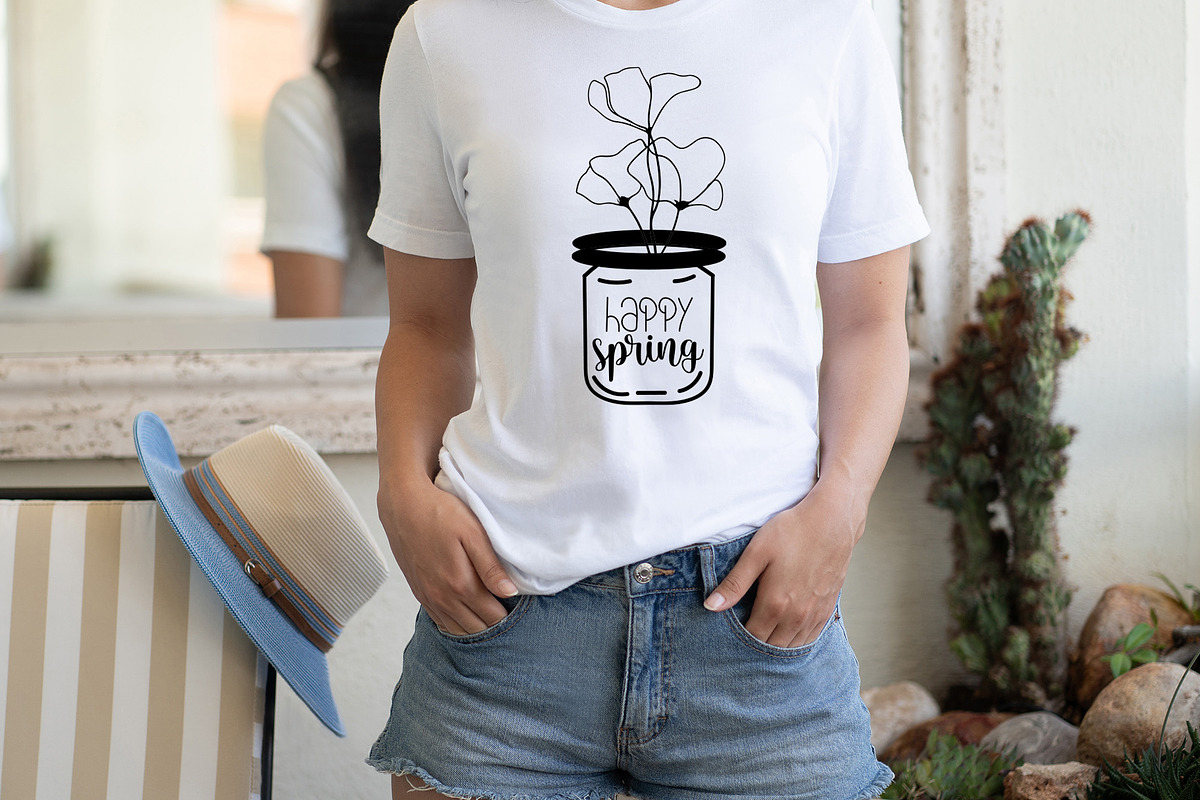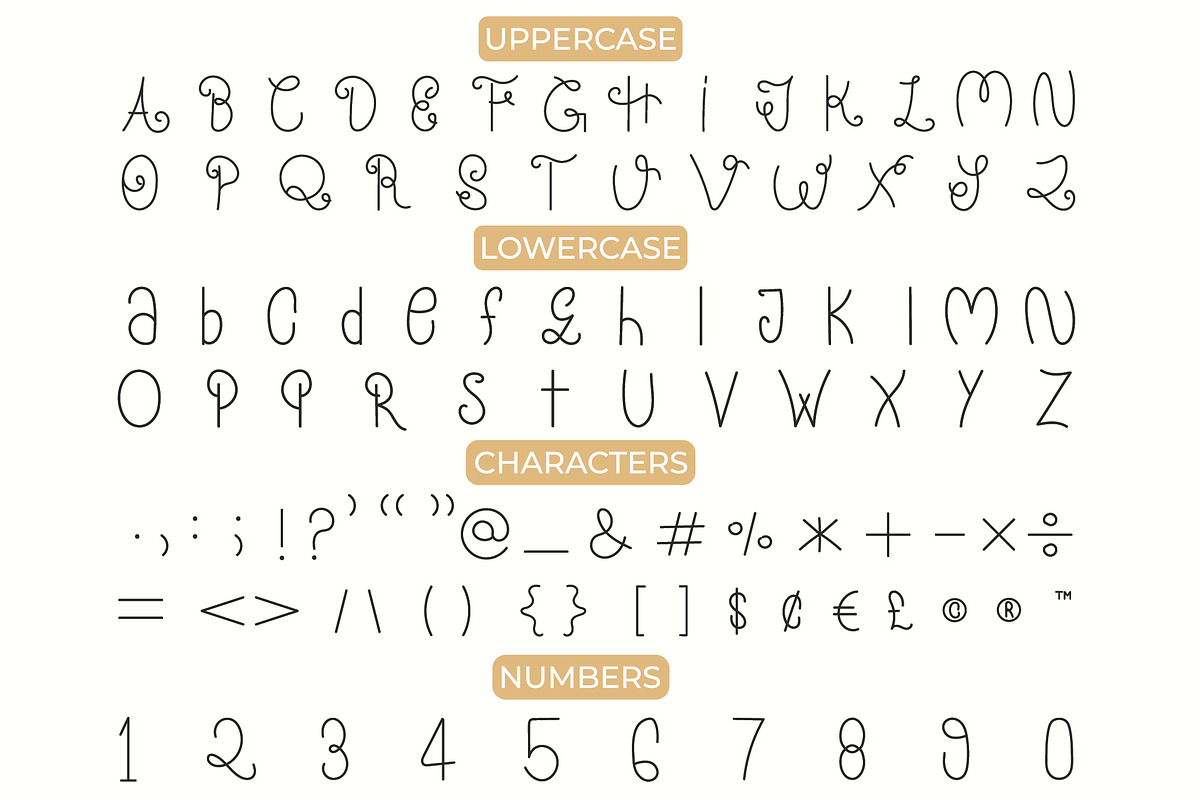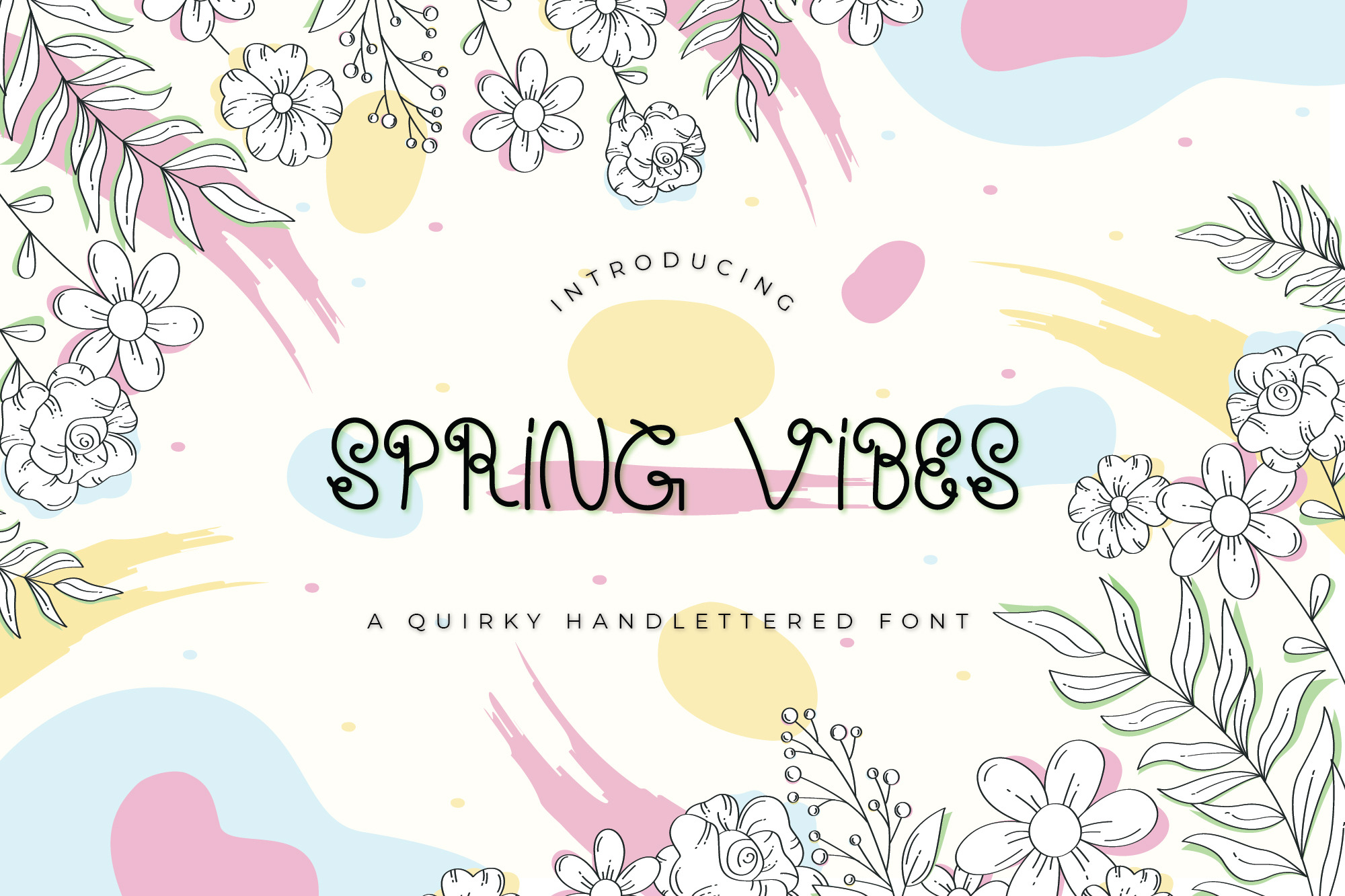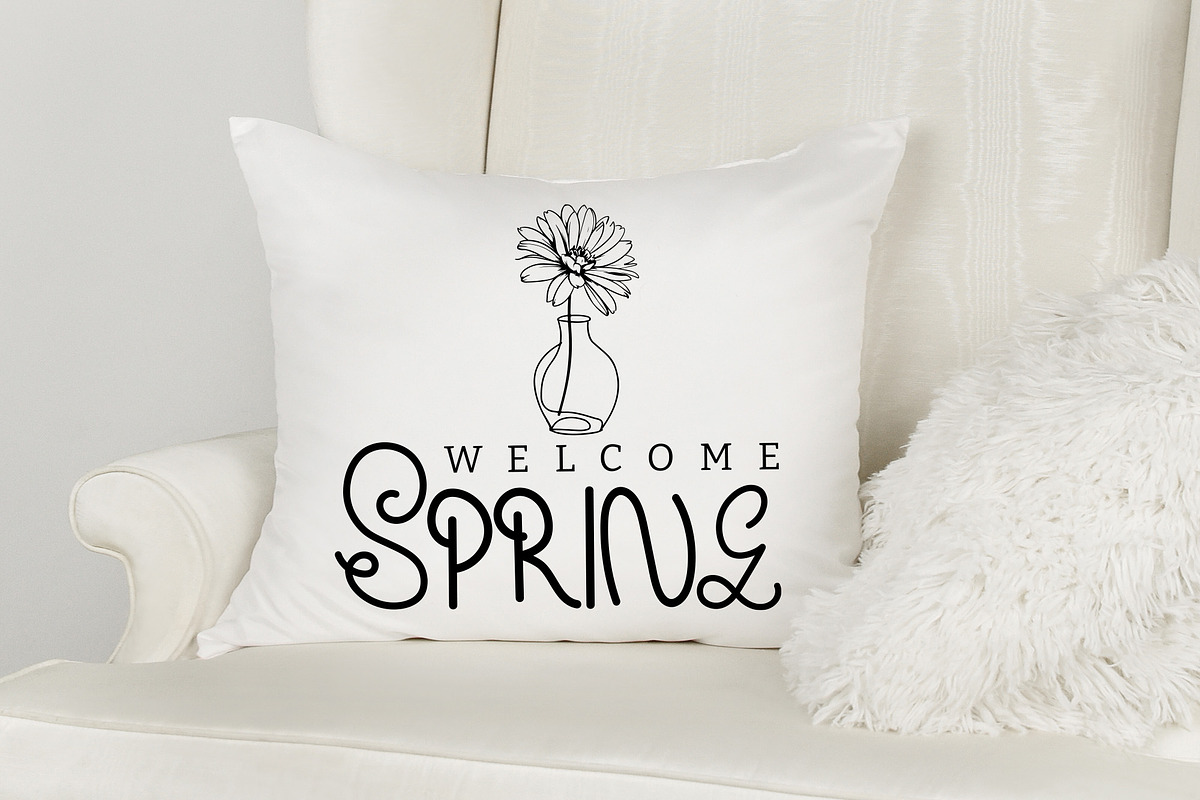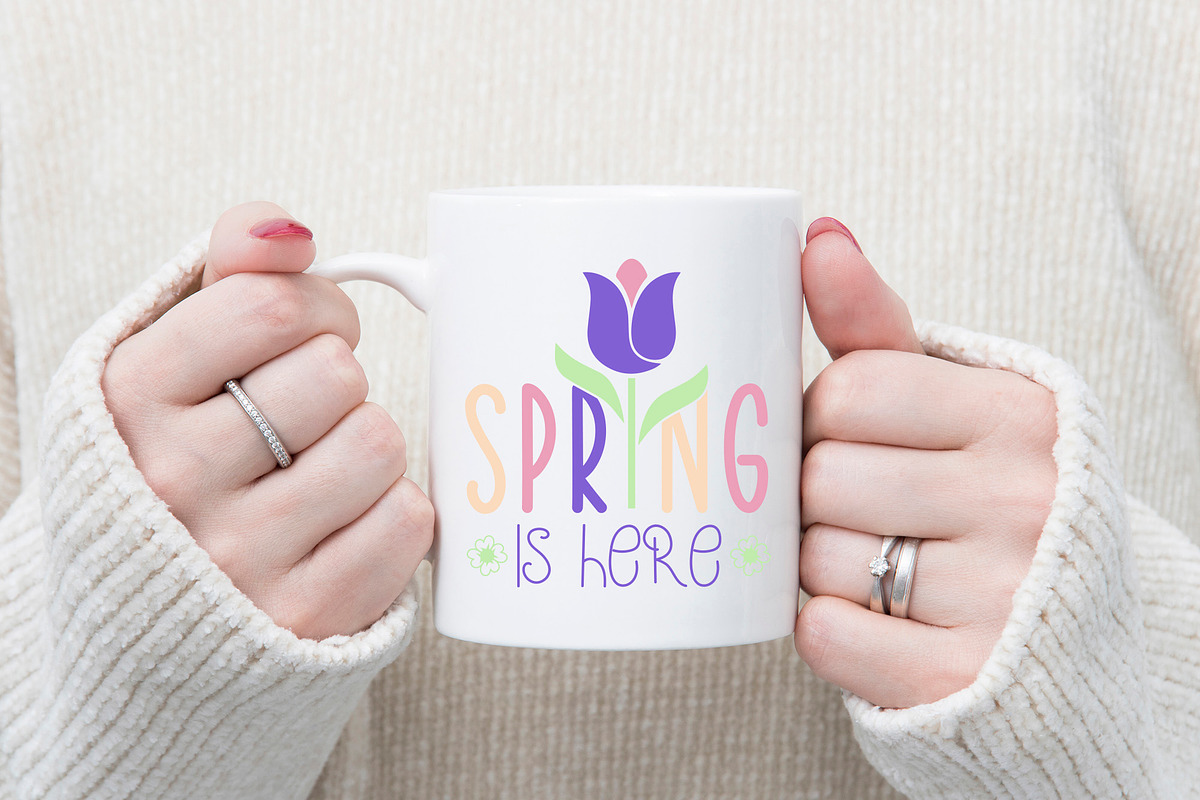
Spring Vibes Quirky Handletterd Font
Spring Vibes is a charming and playful quirky handlettered font. With its quirky and unique letterforms, this handwritten font is perfect for adding a personal touch to any spring-themed design project. Whether you’re creating invitations, greeting cards, posters, t-shirts, mugs, pillows, tote bags or branding materials, this “spring vibes” font will help you stand out and make a statement.